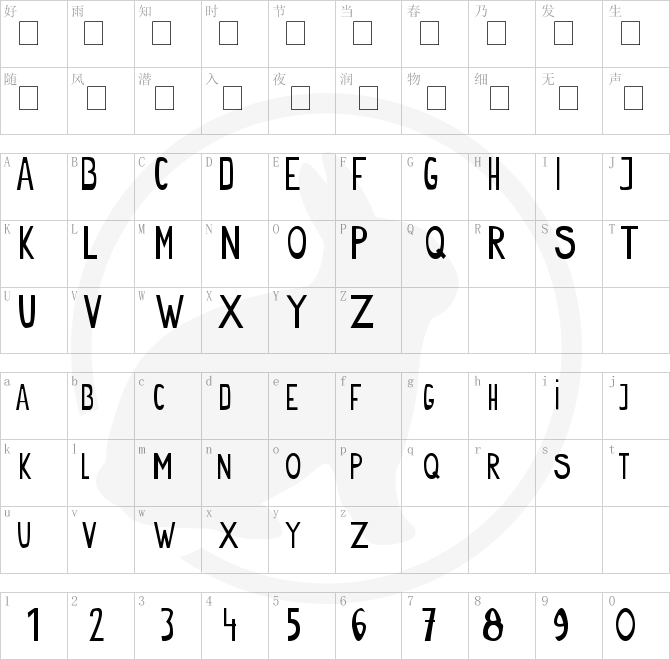
- Font Name:radar_two
radar_two.ttf is a very beautiful artistic font, radar_two.ttf is widely used in the design and printing of various books and pictures,radar_two.ttf has a strong visual impact,radar_two.ttf is a commonly used font in newspapers, magazines and books, and is used in posters, e-commerce Poster design, store design, logo design, font design and other fields.radar_two.